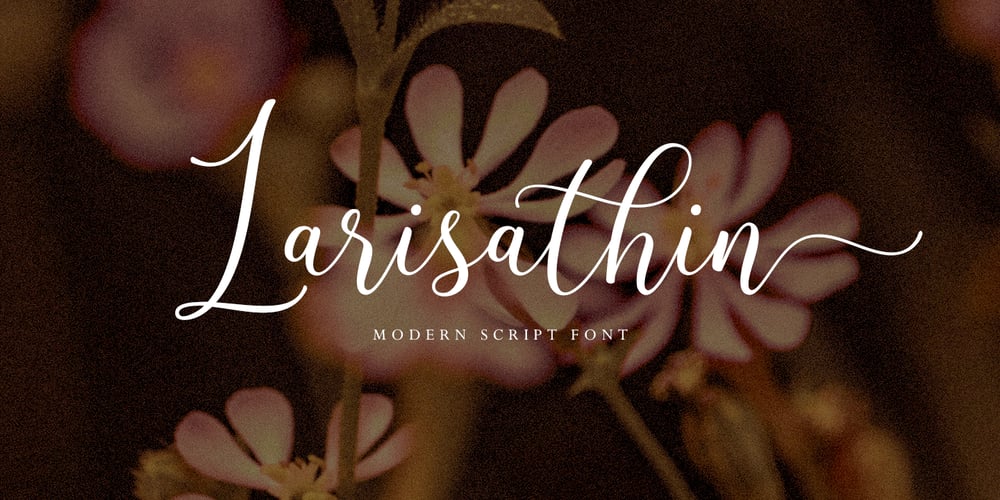
Larisathin
Larisathin font
Larisathin Font Family was designed by Juni Fadil Putra and published by FadeLine Studio. Larisathin contains 1 styles and family package options. This is a Modern Calligraphy font with an elegant, stylish, soft and neat italic style. With a style like this, this font will be suitable in use for logo’s, branding projects, homeware designs, product packaging, mugs, quotes, posters, shopping bags, logo’s, t-shirts, book covers, name card, invitation cards, greeting cards, and all your other lovely projects.